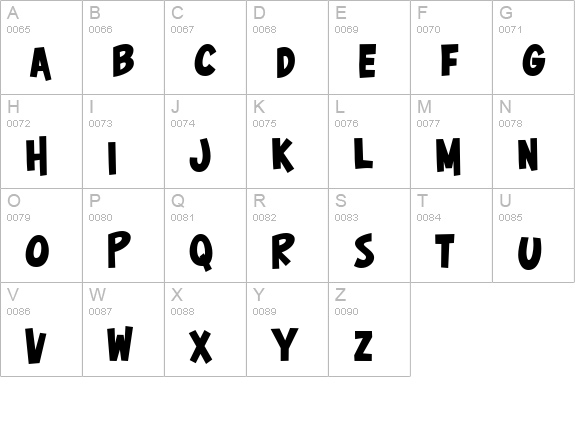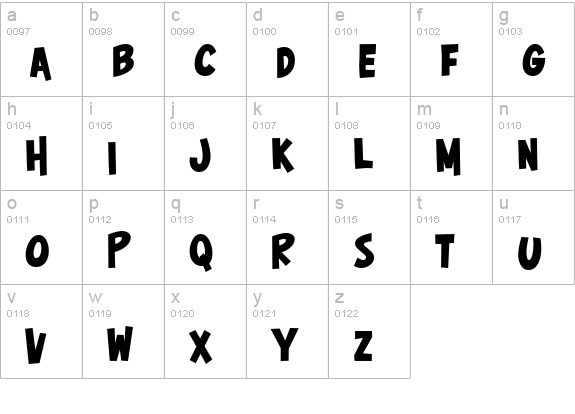
Surfer Shop BTN Bold is a strong, high-contrast variant in the Surfer typeface family \xE2\x80\x94 well suited to headlines, attention-grabbing titles, and strong calls-to-action.
Surfer Shop BTN Bold font is a dynamic and energetic typeface that captures the essence of the surfing lifestyle. With its bold and striking appearance, this font is perfect for creating eye-catching designs that exude a sense of adventure and excitement. Whether you're working on a surf-themed project or simply want to add a touch of boldness to your designs, Surfer Shop BTN Bold is the ideal choice. The best part is that Surfer Shop BTN Bold font is available for free download at FontsMarket.com. This means that you can easily access this stylish and versatile font without having to spend a dime. So why wait? Download Surfer Shop BTN Bold today and take your designs to the next level with its unique and captivating style.